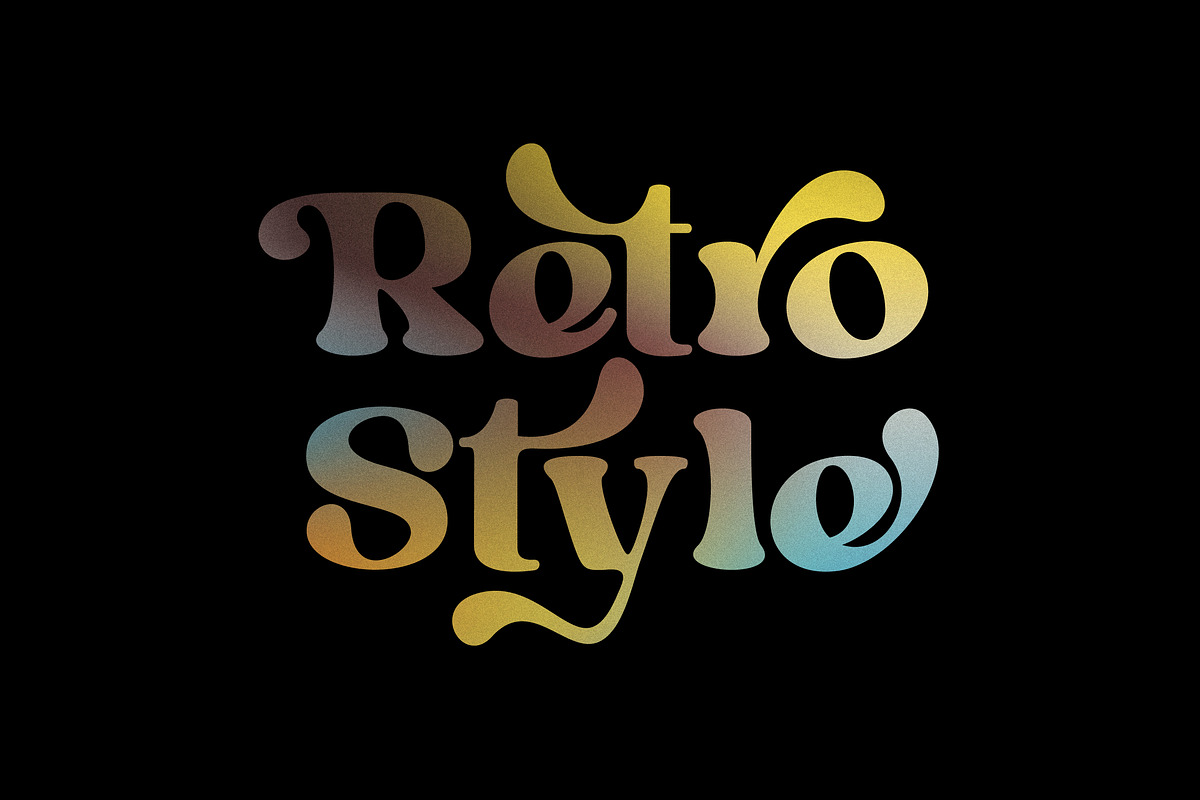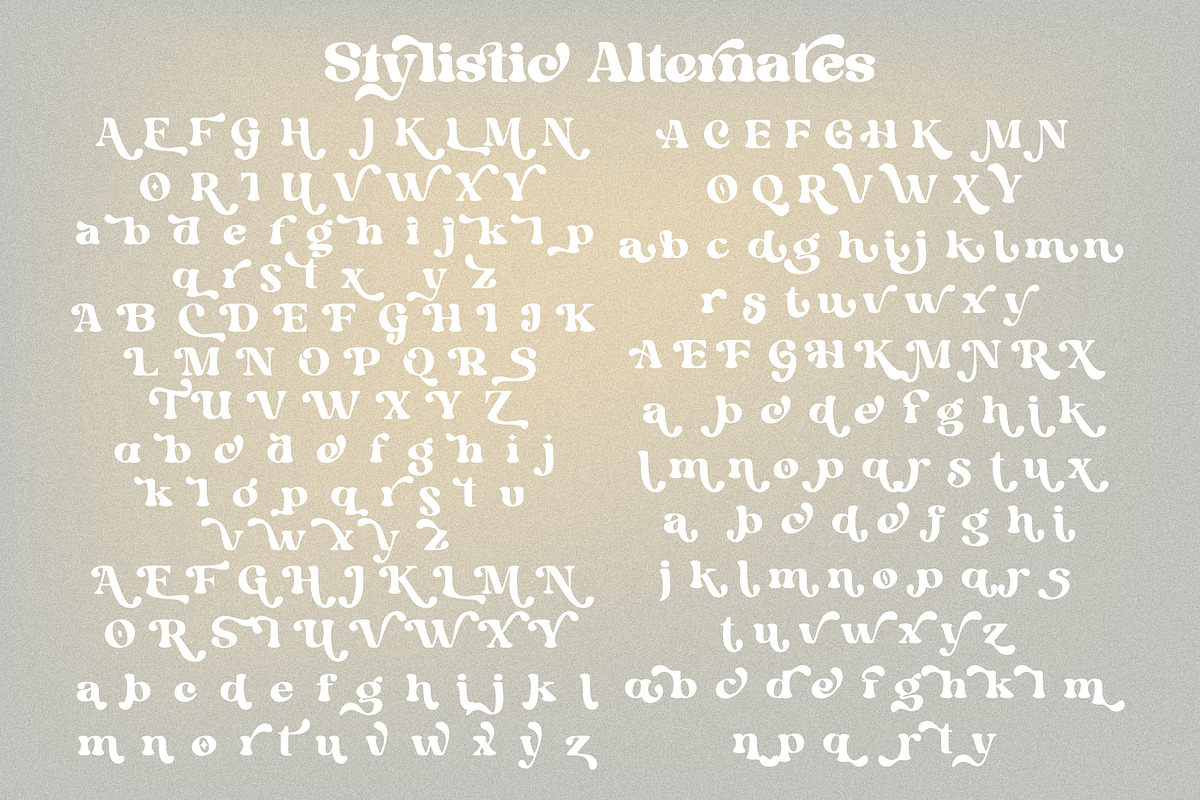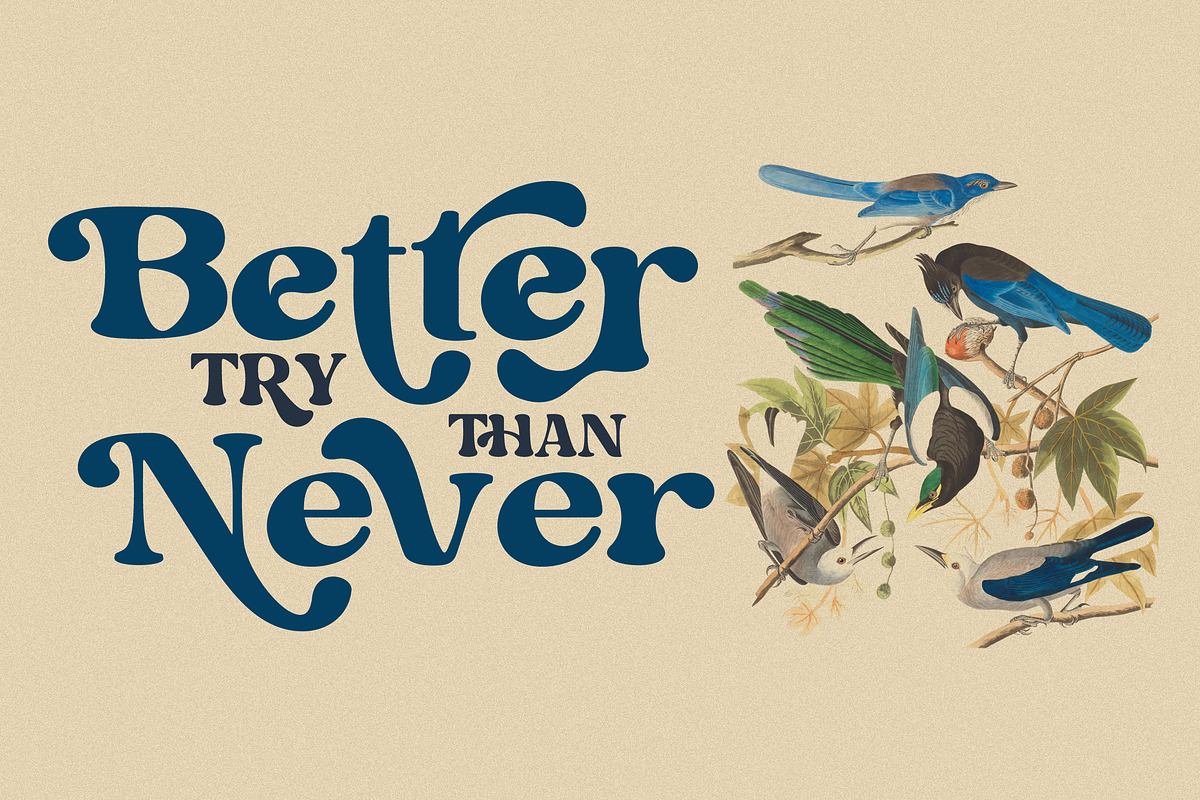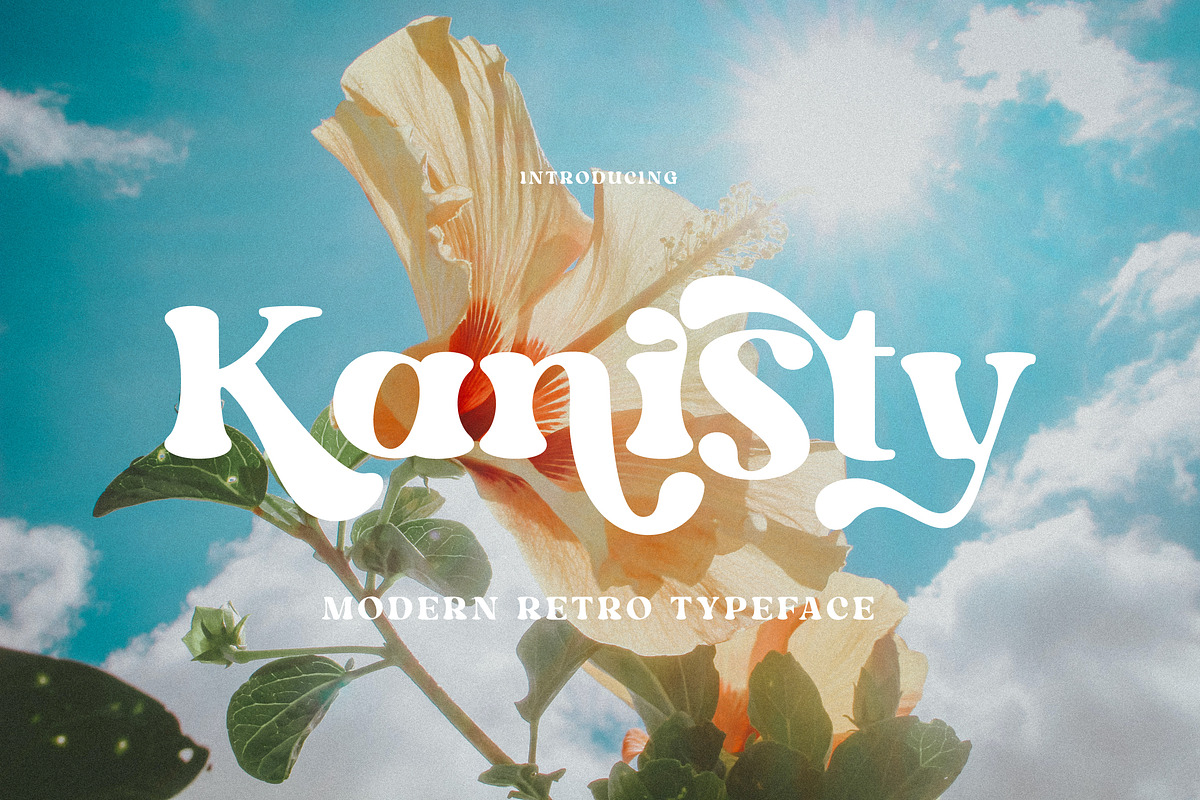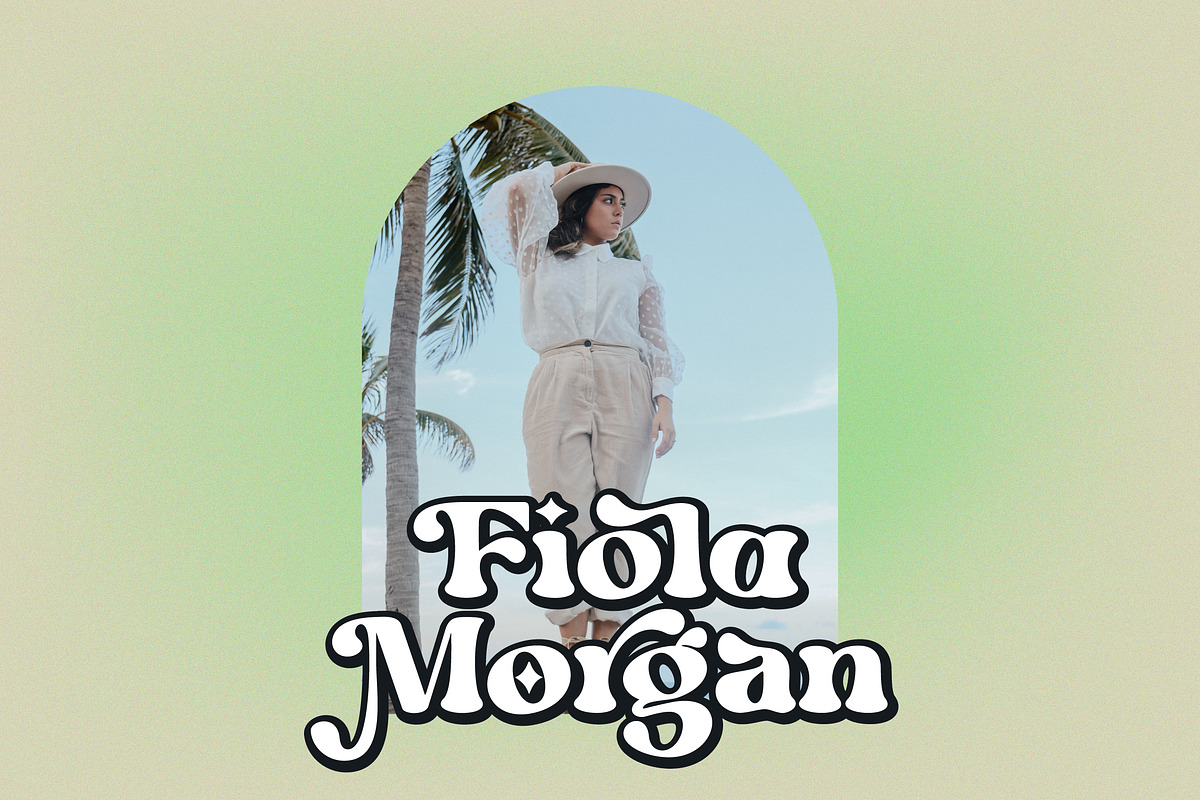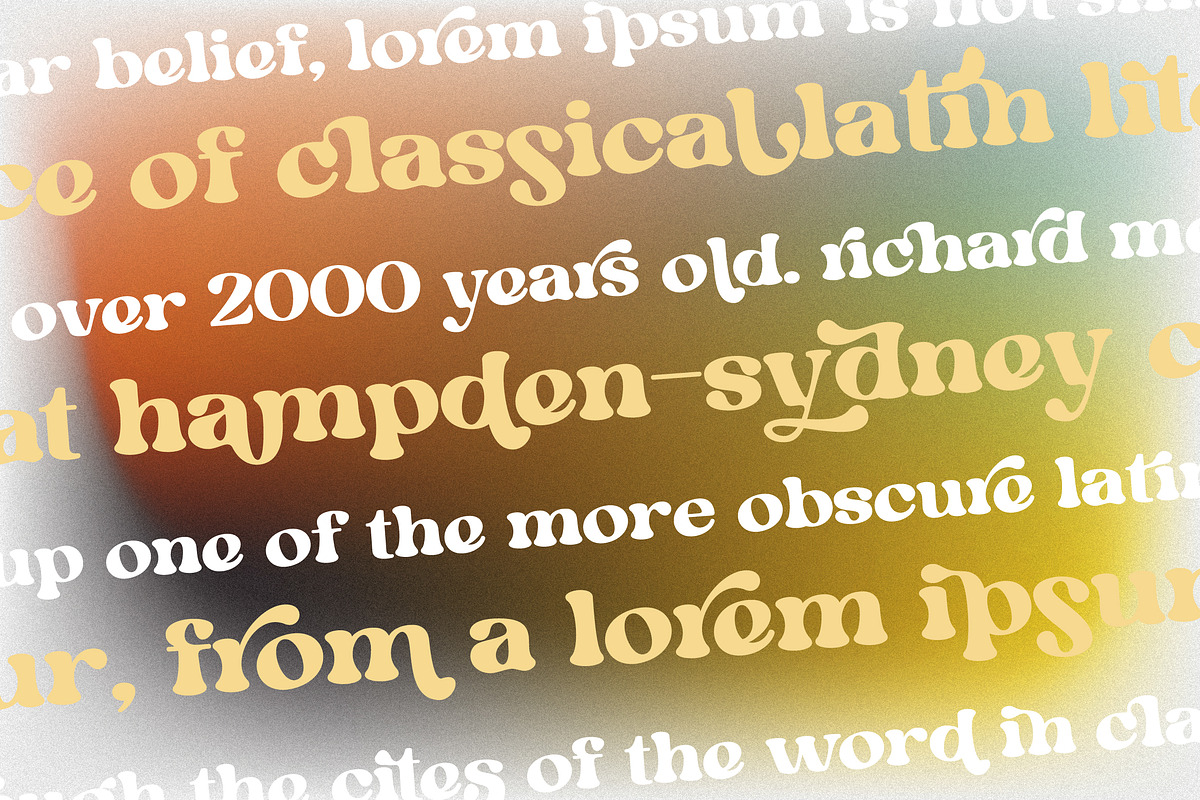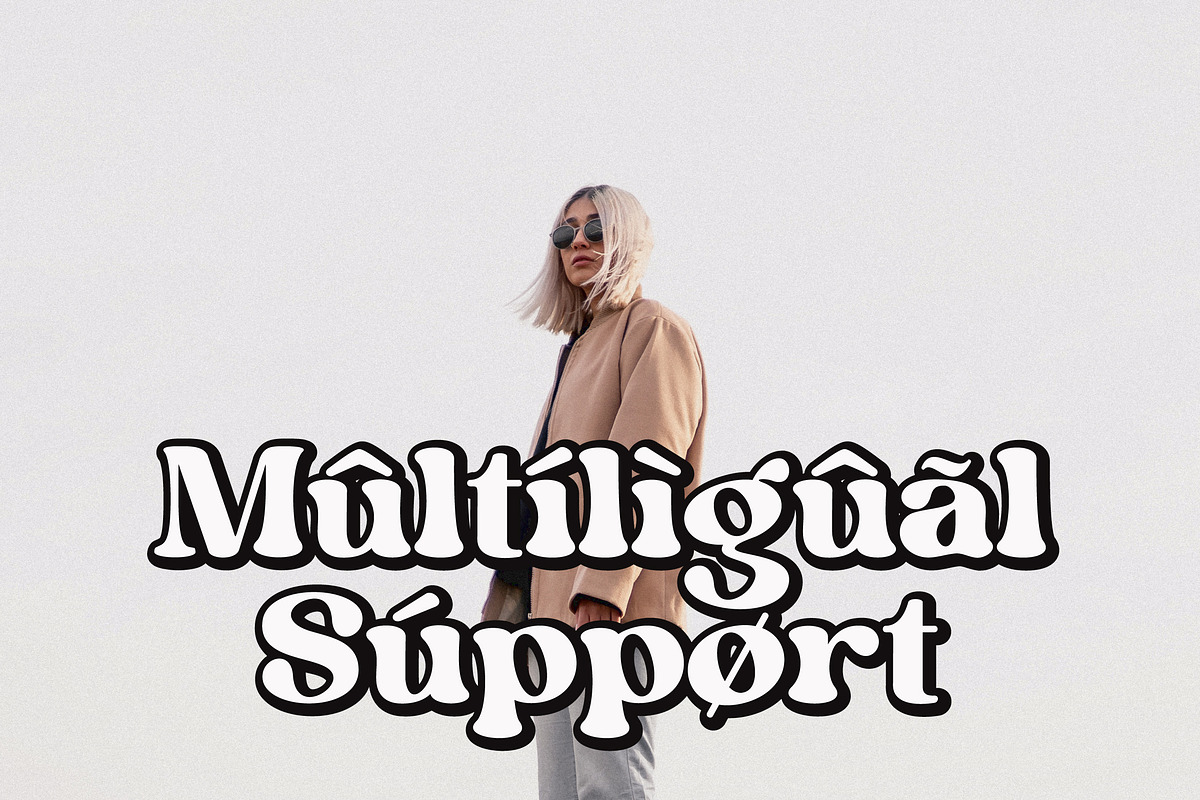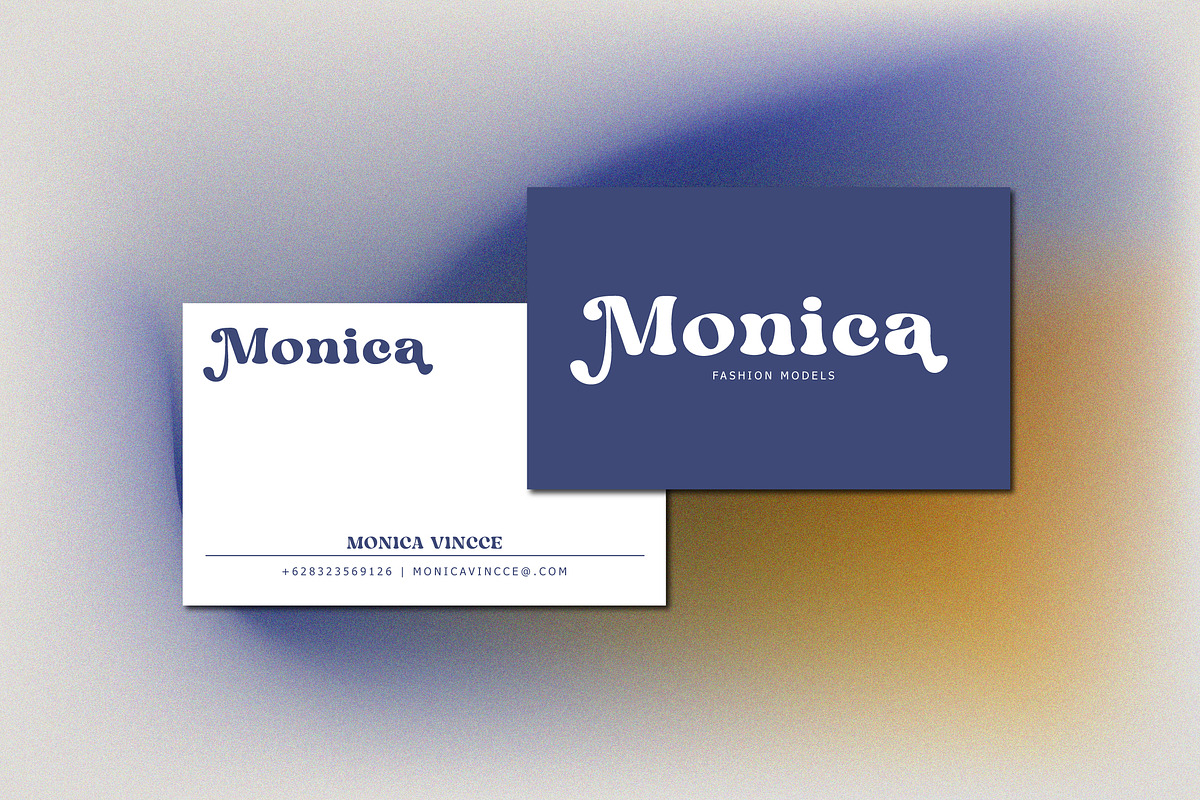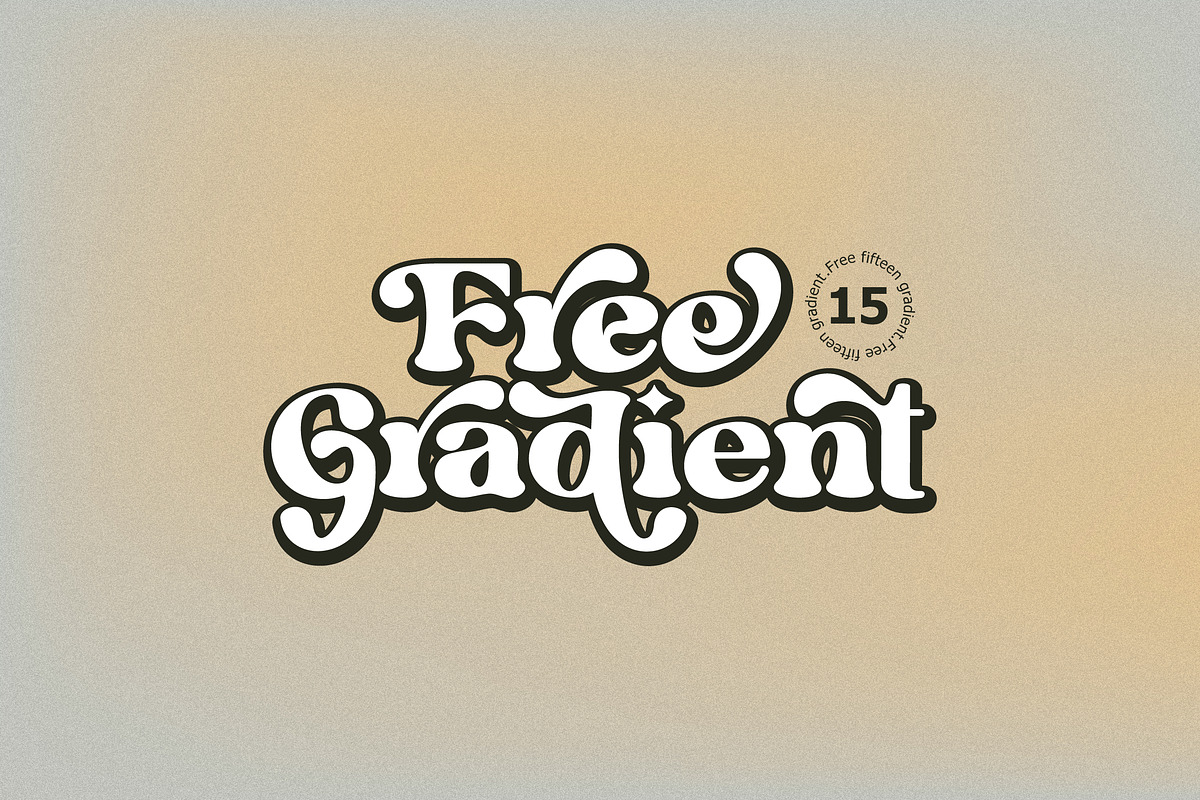
Kanisty - Modern Retro Typeface
Kanisty - Modern Bold Serif Font is a stylish font It has both modern and retro look. Comes with alternatives and ligatures, helps to create stunning logos, quotes, posts, blog posts. branding projects, magazine imagery, wedding invitations, and much more.
- Unique Letterforms